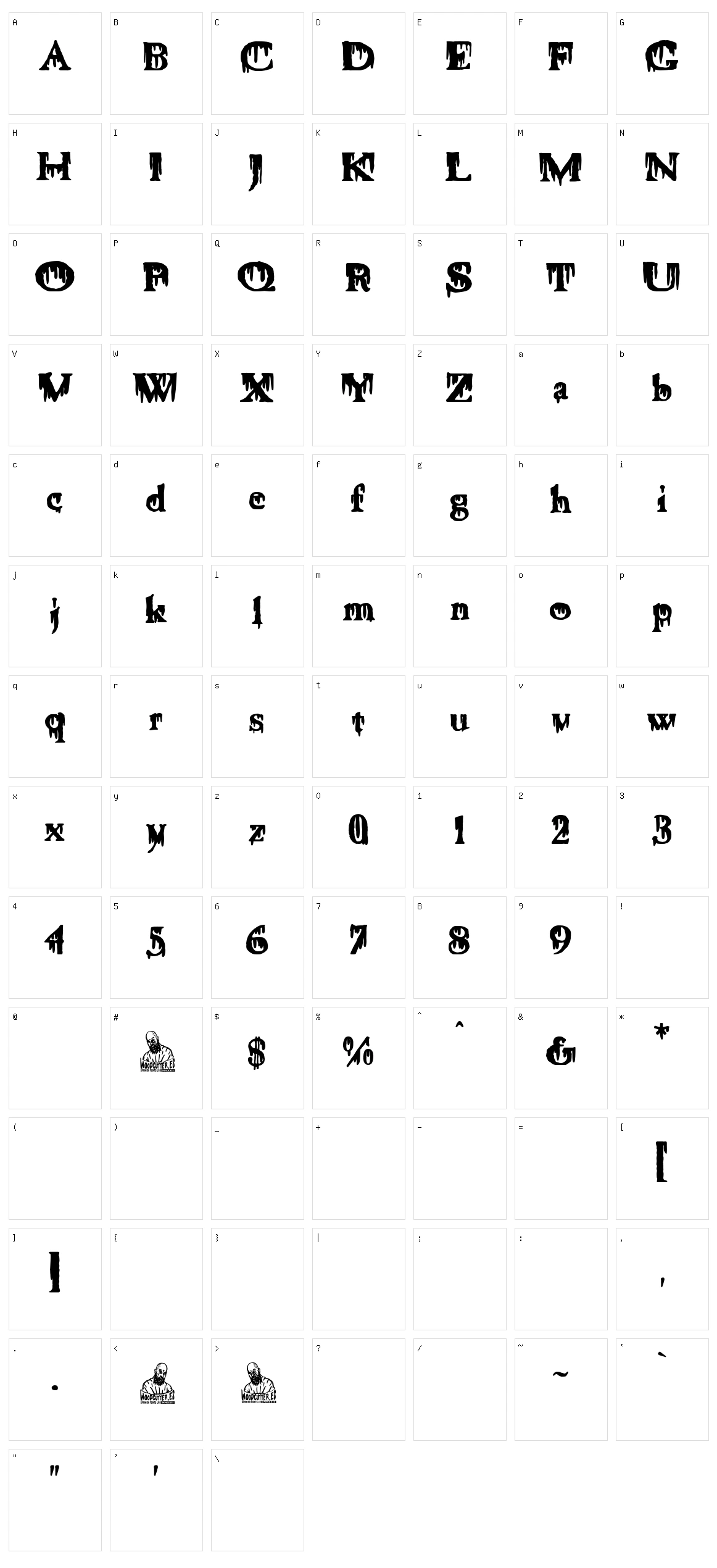
The free font La Sangrienta Caslon is carefully designed by Woodcutter, showcasing a thoughtful balance of creativity and usability and falls under the Horror font style. When you download the ZIP file, it contains only 77.37 KB of font files, making it lightweight and quick to download. Please review the license details below to understand permitted usage and distribution rights. If license information is not available, we recommend using this font for personal projects only or contacting the author directly for commercial usage permissions.